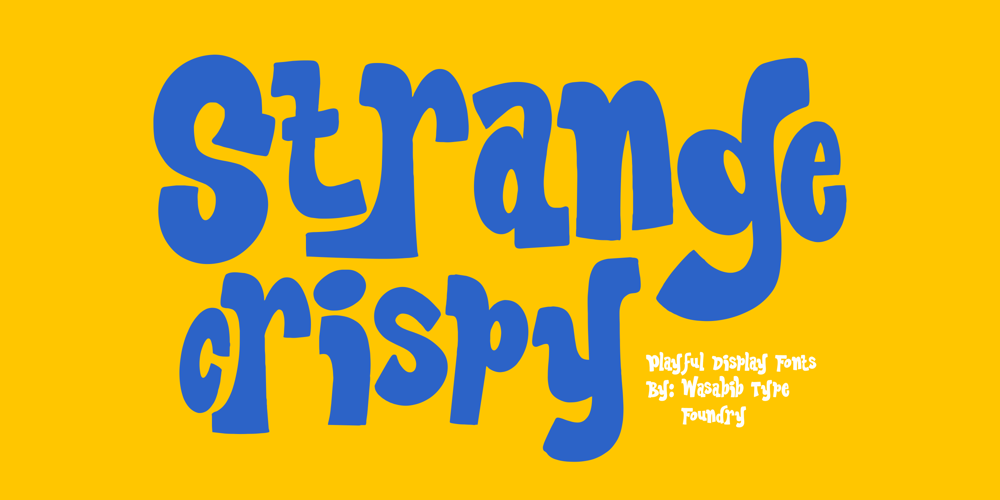
WTF Strange Crispy Font Family was designed by Miftahul Habib and published by Wasabib Type Foundry. WTF Strange Crispy contains 1 styles and family package options. WTF Strange Crispy – is a playful bounced display font that inspired by retro typeface, I make it with 100% hand drawn to get the artistic look. Perfectly suited for quotes, branding, logos, and social media posts, “WTF Strange Crispy” has a unique touch to every design, ensuring it stands out and makes a lasting impact. Illuminate your content with the enchanting allure of “WTF Strange Crispy” font, and let your creativity shine in every project.